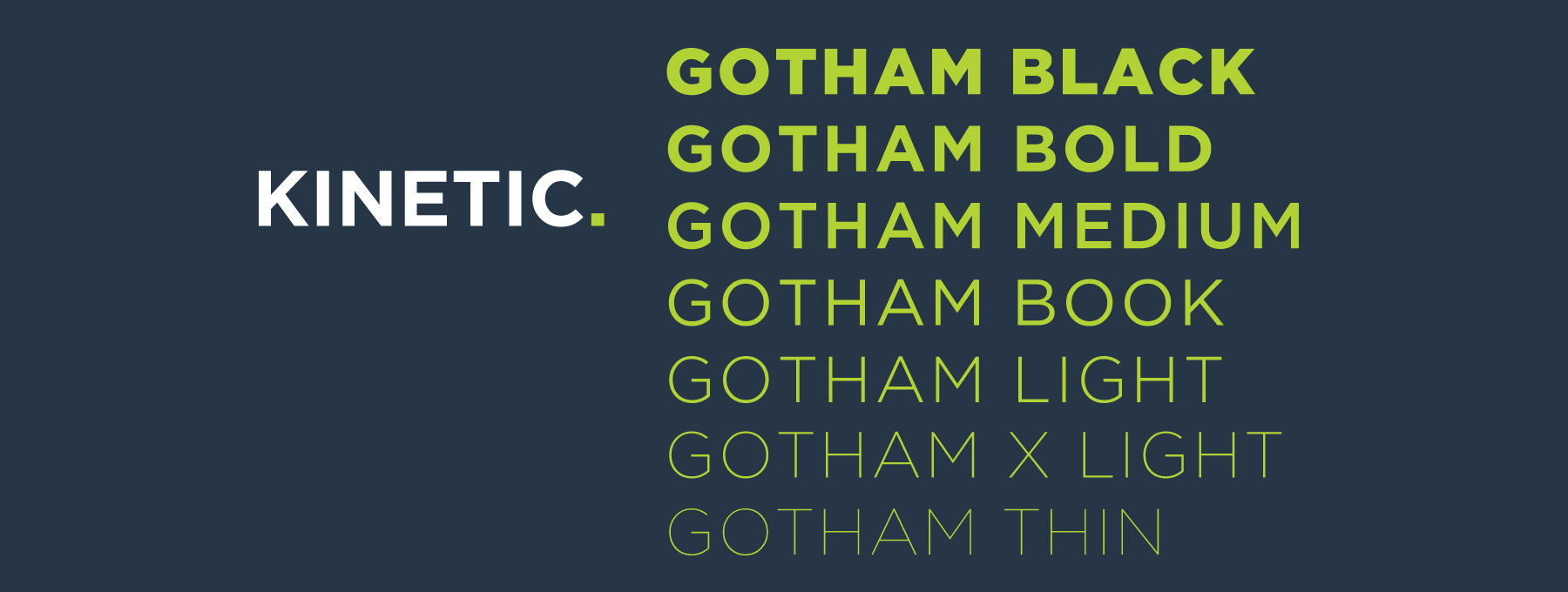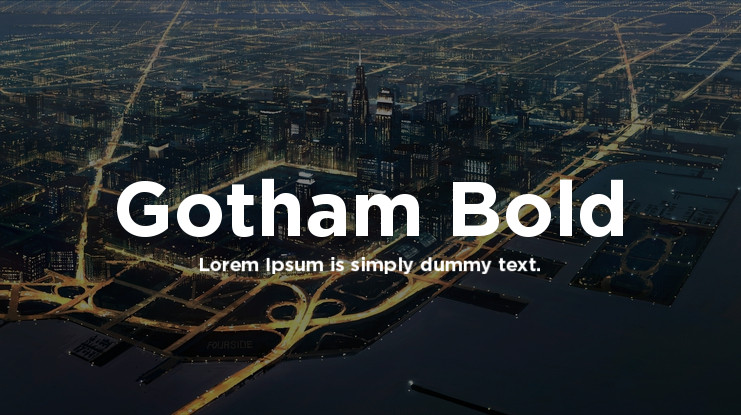
Gotham Bold Font
Gotham bold font is one of the most used fonts in adobe. This is available for free download and is available on google fonts. This makes the content fashionable. Now, the super’s producers took the all proper reserved for this industrial agency.
Its headquarter placed downtown, north. On equal time. Because of the fact, quite a few quantities of designers from the awesome style of the fields whiling to artwork together with that reading gotham font and create a few new designs for advertising and designing. Gotham Bold Font Free On the identical time as you moreover are taken into idea one, in fact, everybody in each in reality considered one in without a doubt all them you then definately are probable inside the proper scenario.
For the primary time, it has to turn out to be created via the bebas kai font. Further broadening of the font family. This font is also known as a hammered font that is used within the google fonts.